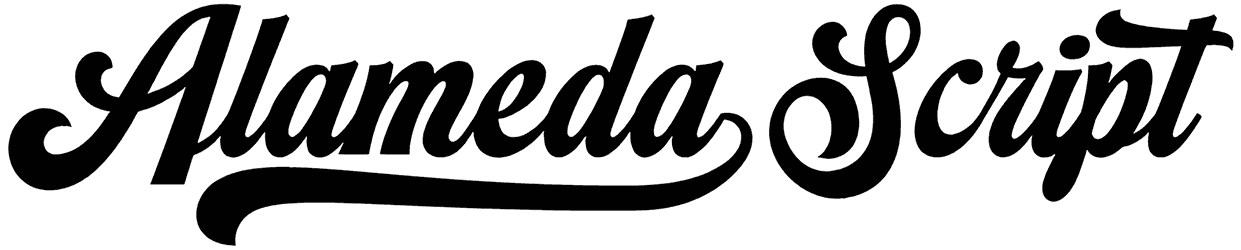
Alameda Script Font
Alameda Script is an old-school font that comes with a smooth texture and sophisticated flow. Due to its elongated and rounded edges, it shares a sense of drama, dynamism, professionalism, and obsession.
If you are in the mood to add an artistic touch to your graphic content, it is better to overlook the lack of numbers and utilize this vintage T-shirt font in posters, logos, business cards, and billboards.
Example: Breakers_
Use multiple underscores to make swashes of different lengths.
Example: Baseball______